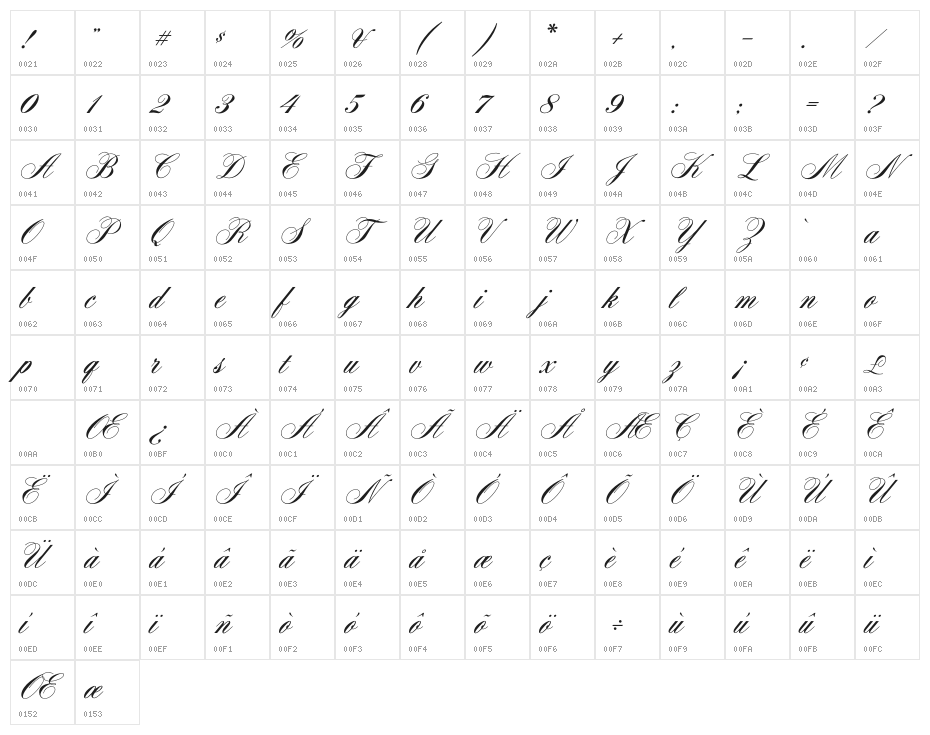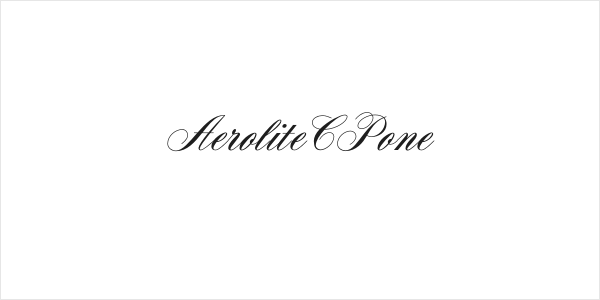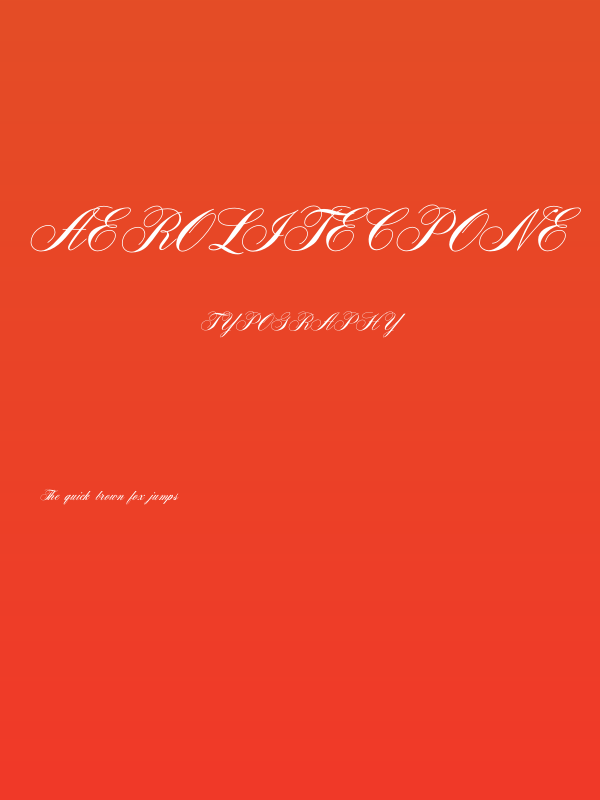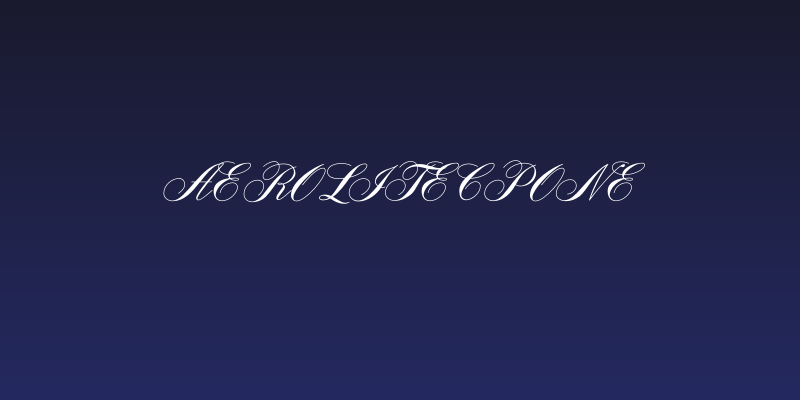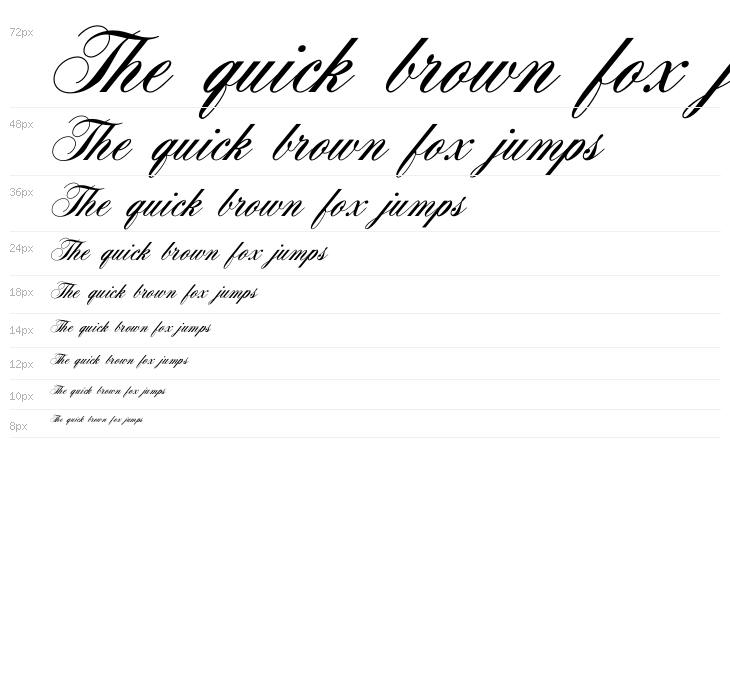
AeroliteCPone Font
AeroliteCPone Description
This elegant script font features flowing, cursive letterforms with a classic and sophisticated appearance. The uppercase letters are ornate with intricate loops and flourishes, while the lowercase letters maintain a smooth and connected style. The numerals are styled to match the script's graceful curves, adding a touch of refinement. Special characters are designed with similar elegance, making this font suitable for formal and decorative purposes. The overall design is reminiscent of traditional calligraphy, offering a timeless aesthetic.
| Proposed Projects | Ideal for wedding invitations, elegant branding, formal event programs, and decorative signage. |